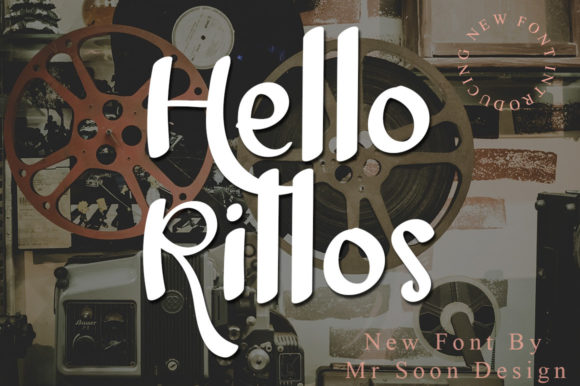
Hello Rillos Font
About Hello Rillos Font
Hello Rillos is a chic and trendy handwritten font. Whether you’re looking for fonts for Instagram or calligraphy scripts for DIY projects, this font will turn any creative idea into a true piece of art!